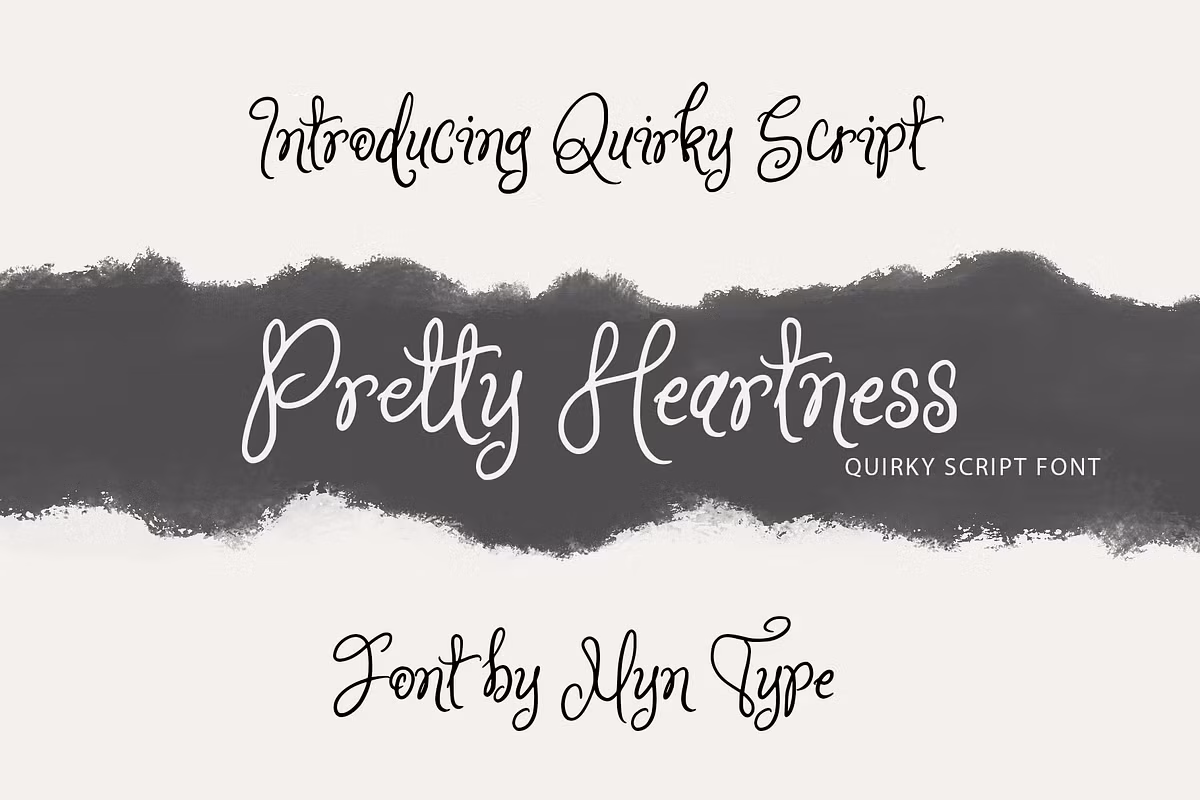
Add a splash of sweetness and charm to your design with Pretty Heartness Quirky Handwriting Font Free Download — a playful, handwritten typeface full of personality and fun. With its bouncy letters and whimsical curves, this font is perfect for greeting cards, planner pages, social media graphics, kids’ projects, and cute branding that needs a joyful touch.
Pretty Heartness captures the carefree spirit of handwritten notes, doodles, and heartfelt messages. It includes uppercase and lowercase letters, punctuation, numerals, and multilingual support — giving you everything you need to create expressive, happy, and lighthearted visuals.